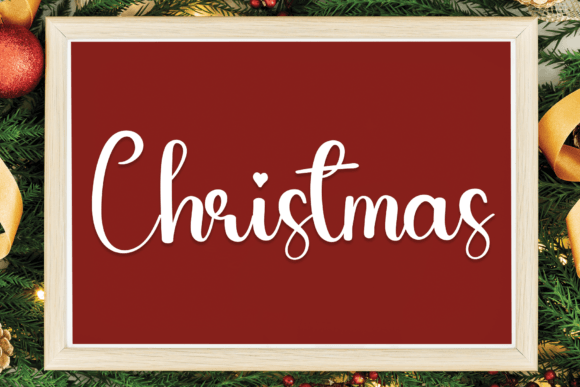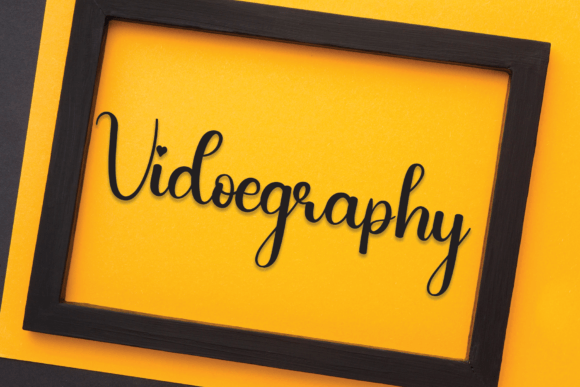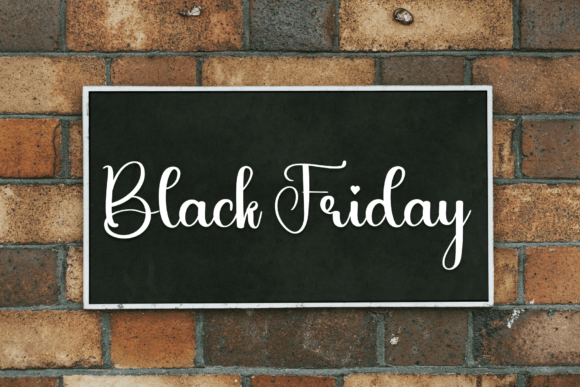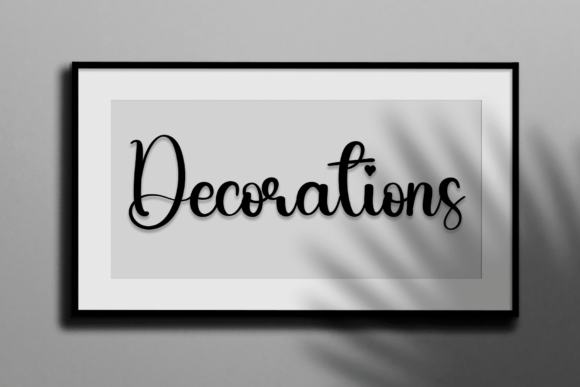
Introduction to Signature December Font
There’s something special about curling up with a warm cup of coffee, surrounded by scattered papers and creative chaos. You’re working on a special project – perhaps a holiday card or a festive social media post – and you’re in desperate need of a font that captures the essence of the season. That’s when you stumble upon the Signature December Font, a delightful handwritten font that’s sure to become your go-to choice for all your creative endeavors.
As a designer, you know the importance of having high-quality design resources at your fingertips. The Signature December Font is a valuable addition to your collection, offering a free download that’s perfect for crafts, digital design, presentations, and more. With its transparent background, you can easily incorporate this font into your projects without worrying about background clutter.
Whether you’re working on a creative project or simply want to add a personal touch to your designs, the Signature December Font is a must-have. Its friendly and approachable style makes it perfect for any occasion, and its high-quality design ensures that your projects will stand out from the crowd.
Key Features of Signature December Font
- Unique and elegant script font design perfect for creative projects and special occasions.
- High-quality font with transparent background, ideal for digital use and design resources.
- Includes uppercase and lowercase letters, numbers, and punctuation marks for complete functionality.
- Designed in a modern, stylish style, making it perfect for invitations, quotes, and other creative projects.
Honest Review: Signature December Font
I recently had the chance to work with the Signature December Font, and I must say it’s a solid addition to any designer’s toolkit. The font is perfect for creating a festive atmosphere in your creative project, and the high-quality design really shines through.
Here are some things that work well with this font:
- ✨ The font has a transparent background, making it easy to use in various design scenarios.
- ✨ The design is modern and sleek, making it perfect for any creative project.
- ⚠️ The font may not be as versatile as some other fonts on the market, so be sure to test it out before committing to a project.
- ⚠️ Some users may find the font a bit too flashy, so be sure to use it sparingly.
Overall, I’m impressed with the Signature December Font. It’s a great design resource for any designer looking to add a bit of festive flair to their project. Just be sure to use it thoughtfully, and you’ll be golden.
Signature December Font
The Signature December Font is a high-quality, free design resource perfect for adding a touch of elegance to your creative projects. With its transparent background, this font is versatile and easy to use in a variety of applications.
The Signature December Font is perfect for a variety of creative projects, including holiday cards, invitations, and gift tags. Its elegant design makes it ideal for use in wedding invitations, baby shower invitations, and other special occasion cards.